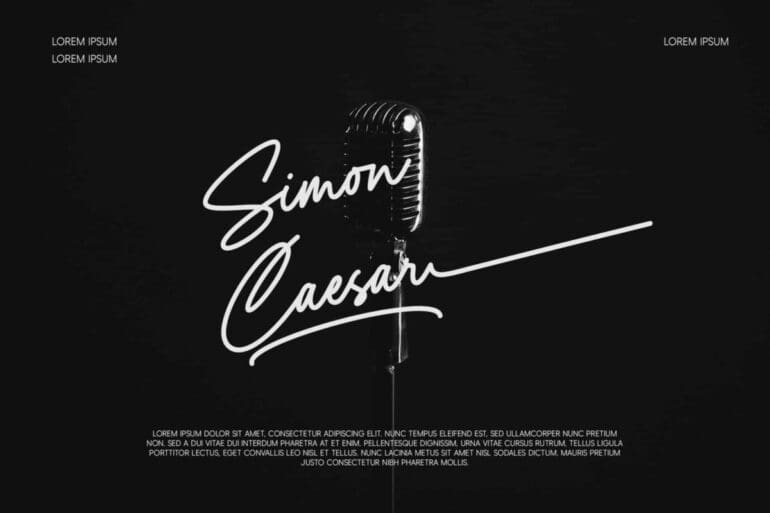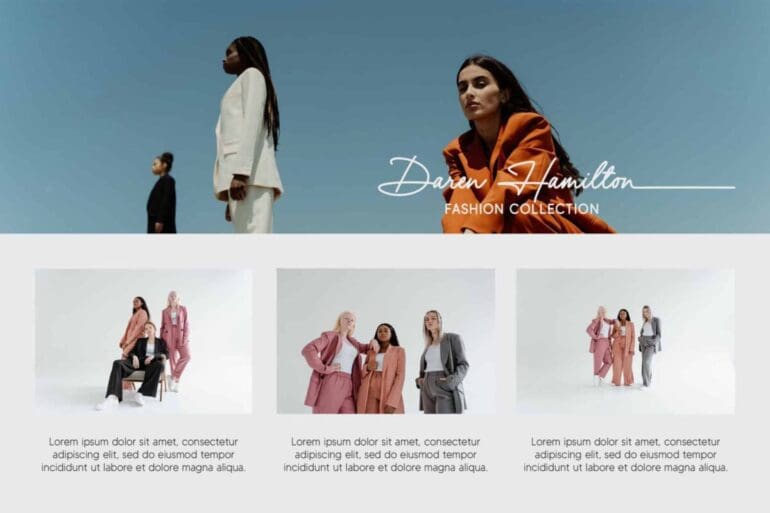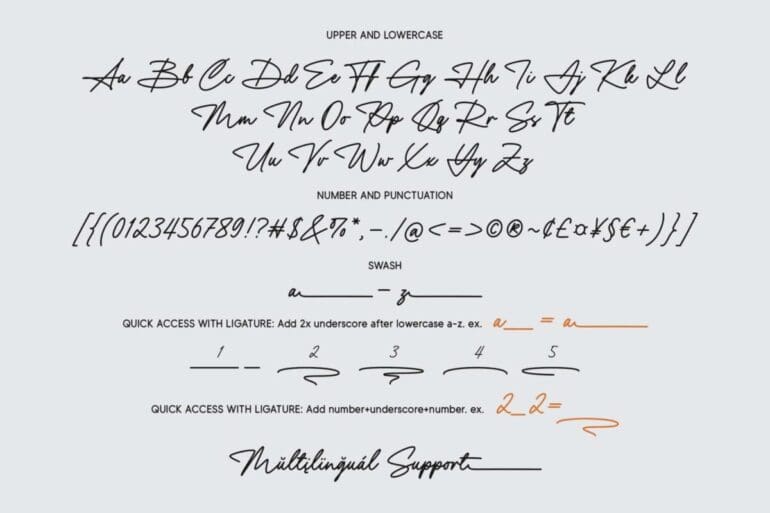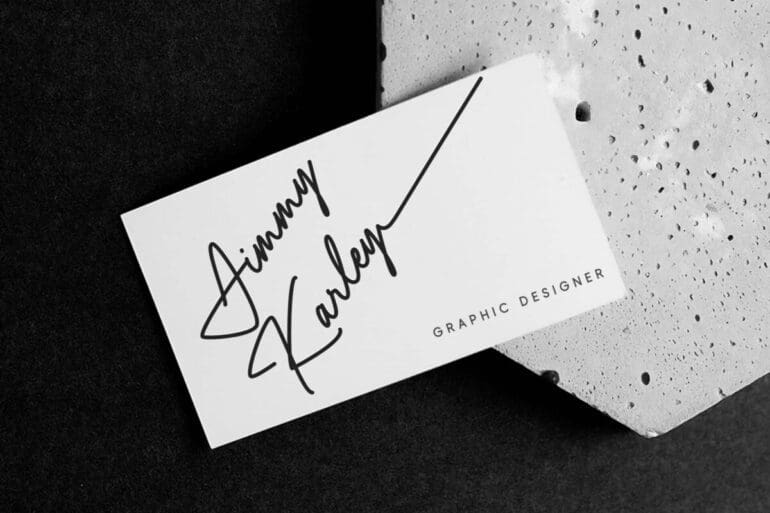
Yustine Signature Font
Yustine Signature is a signature script font, featuring a lovely flow. It has a clean and smooth vibe and it will be a hit for any design that you want to add it to. Is perfect for many different project such as logos & branding, invitation, product designs, label, photography, and more.